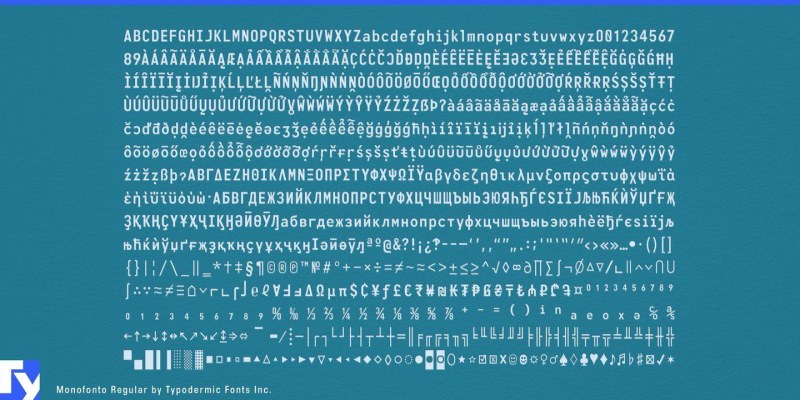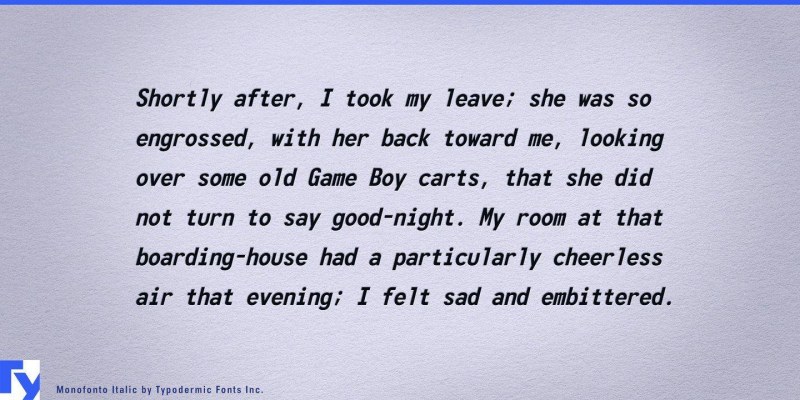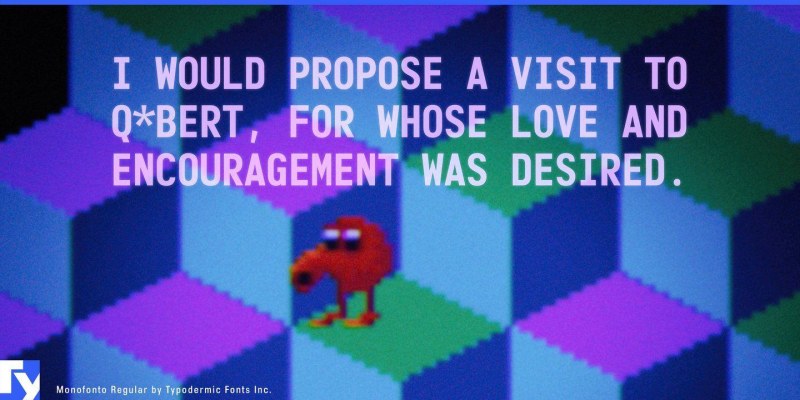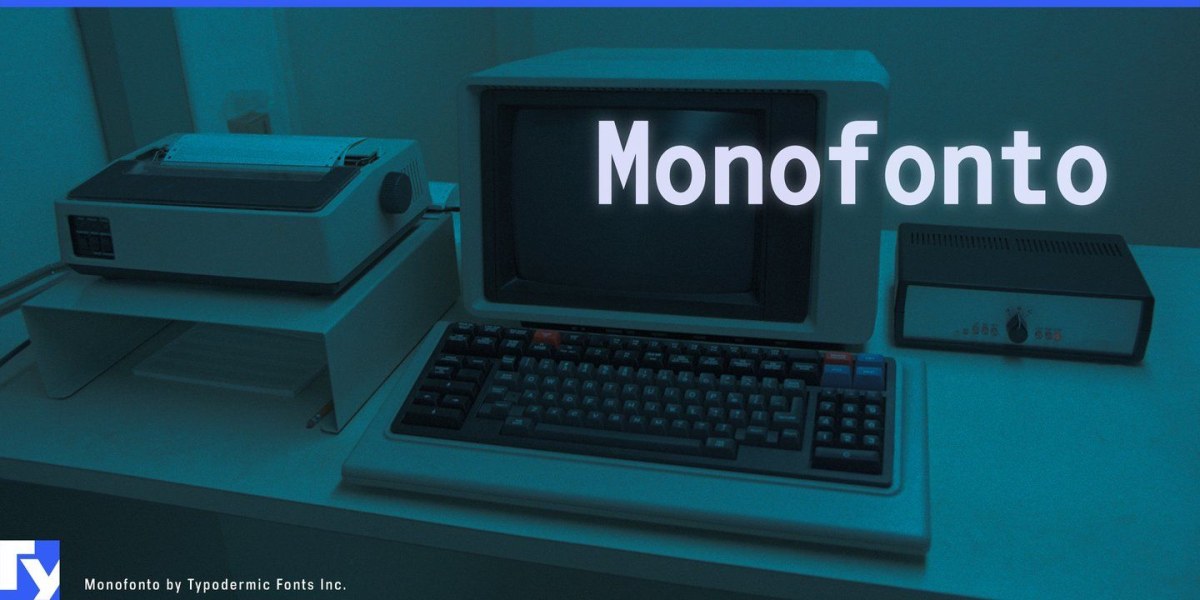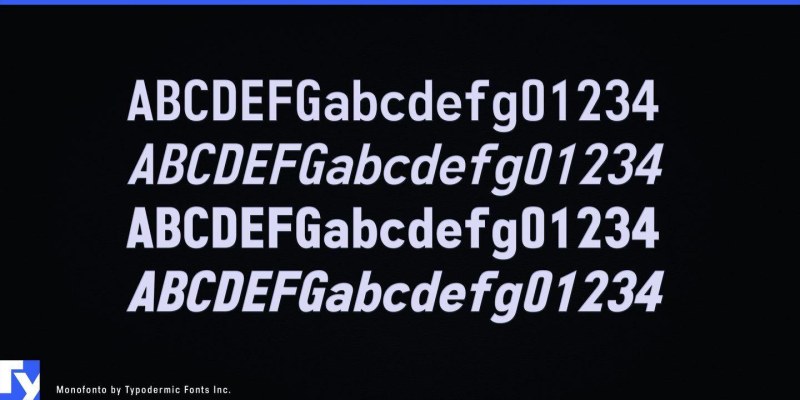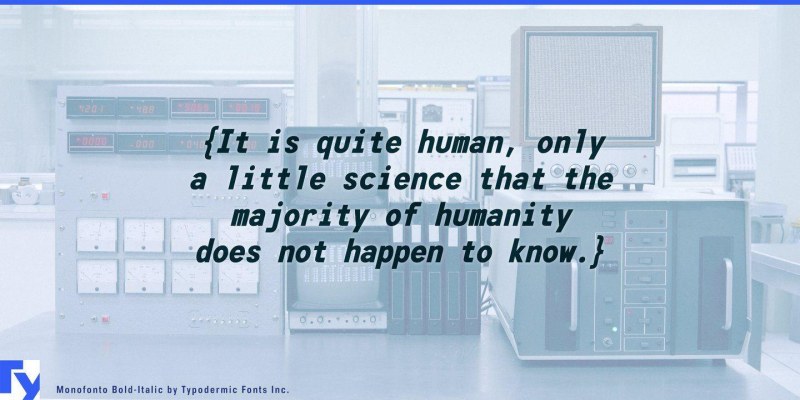
Monofonto Font Family
Monofonto is a technical, monospaced sans-serif typeface. Originally released in 1999, Monofonto gained popularity throughout the 2000s and was famously used in the Fallout game series. It’s a compact sans-serif with heavy strokes for extra-clarity at small sizes. Monofonto includes lots of mathematical characters, currency symbols and terminal block-draw characters. It’s available in Regular, Italic and Bold-Italic styles. Most Latin-based European, Vietnamese, Greek, and most Cyrillic-based writing systems are supported, including the following languages.
Monofonto Font Family is a Sans Serif Fonts font that brings a professional and versatile look to your projects. Monofonto is a technical, monospaced sans-serif typeface.